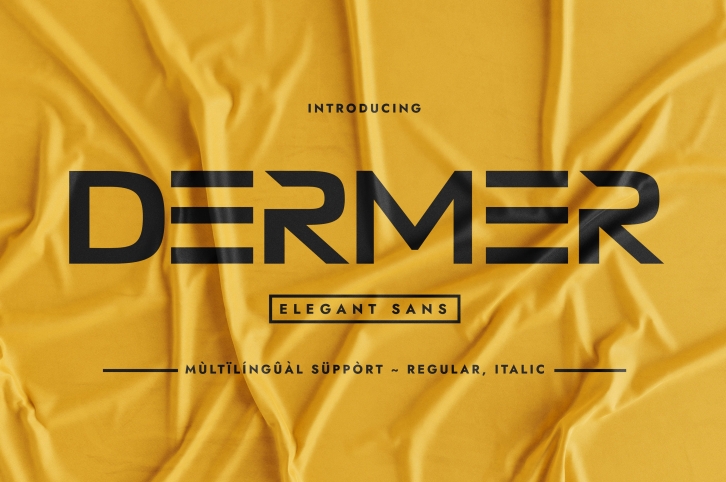
Dermar is a minimalist, elegant, and wide sans serif typeface. Its bold appearance and wide glyph construction render it a valid choice when you are looking for a sans serif display font that leaves a powerful impact on the eyes and grabs attention. It perfectly fits a wide range of design themes, such as packaging design, cosmetics, fabrics, POD, etc. Use it confidently in your creation, and you'll love it!